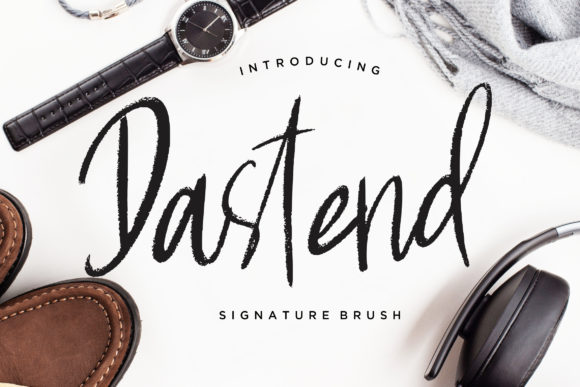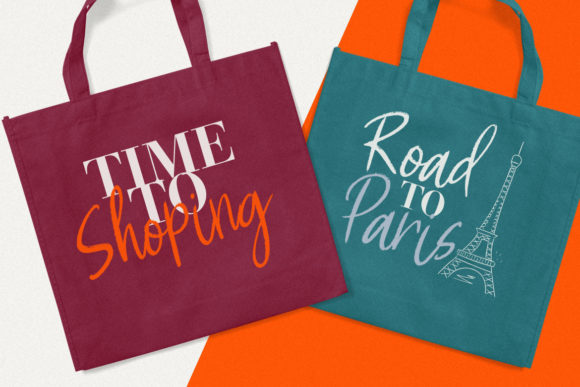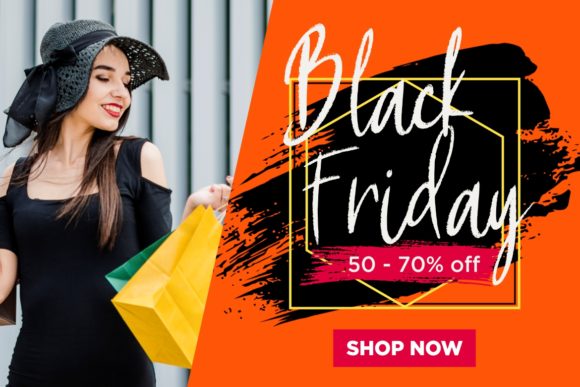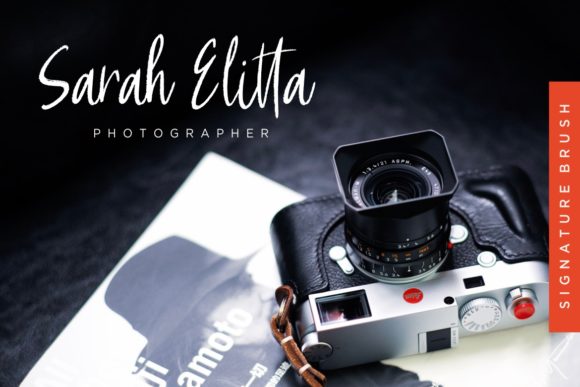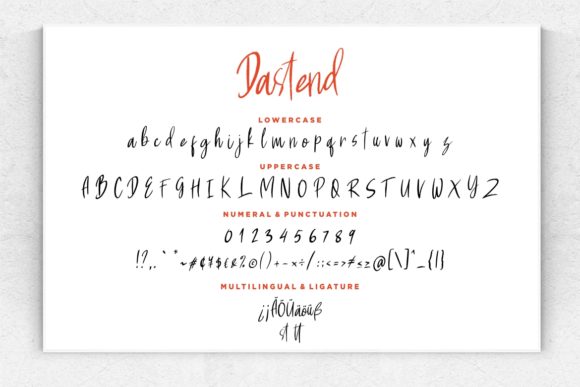
HomeScript FontsDastend Font Script Fonts Dastend Font FacebookXPinterestWhatsApp Dastend Font Poster 2 Dastend Font Poster 3 Dastend Font Poster 4 Dastend Font Poster 5 Dastend Font Poster 6 Dastend Font Poster 7 Dastend Font Poster 8 About Dastend Font Dastend is a stunning and bold script with a wild feel. DOWNLOAD ON CREATIVE FABRICAThis font is sold and delivered by Creative Fabrica. Font Canyon may earn a commission if you buy through this link. People also explored Berryblue Font Jembaro Font Affectionate Font Maharany Raflestta Elisha Font Horseland Font Flowerbrain Font Lindkvist One Prim Rose Font 322 0 TagsDastend Font Previous articleMattrill FontNext articleHerist Font LEAVE A REPLY Cancel reply Comment: Please enter your comment! Name:* Please enter your name here Email:* You have entered an incorrect email address! Please enter your email address here Website: Save my name, email, and website in this browser for the next time I comment. Personal Use Free Cinderella Personal Use Free Read more about this font Awkward Personal Use Free Read more about this font Kellana Personal Use Free Read more about this font BD Geminis Personal Use Free Read more about this font BLOG Top 10 Handwritten Fonts That Elevate Your Designs Top 10 Handwritten Fonts That Will Elevate Your Designs Handwritten fonts bring a warm, personal touch to every creative project. Whether you're designing logos, invitations,... The 10 Best Handwriting Fonts to Add Personality to Your Designs Top 7 Google Fonts Alternatives for Faster and Privacy-Friendly Web Design (2025) Free Fonts Risk: Why Free Fonts Can Be Dangerous for Designers